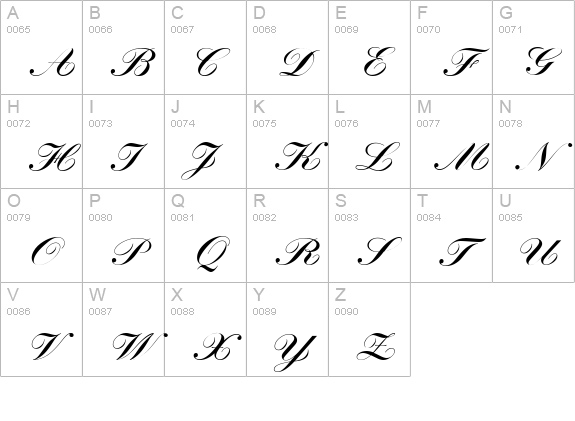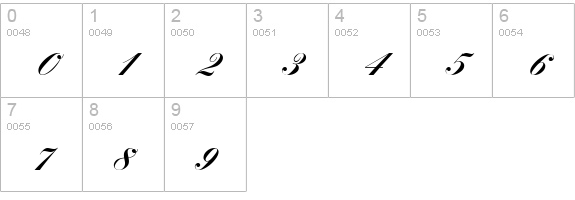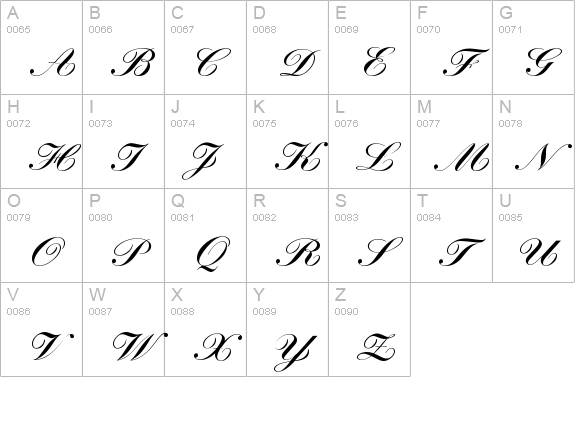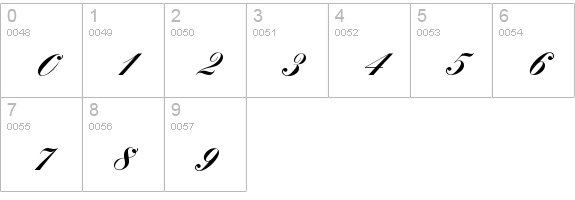
KremlinScript-Bold is a strong, high-contrast variant in the KremlinScript typeface family \xE2\x80\x94 well suited to headlines, attention-grabbing titles, and strong calls-to-action.
KremlinScript-Bold is a striking and bold font that exudes elegance and sophistication. Its strong and clean lines make it perfect for headlines, titles, and other prominent text. The font carries a sense of authority and confidence, making it ideal for projects that require a commanding presence. What sets KremlinScript-Bold apart is not just its boldness, but also its versatility. Whether used in print or digital media, this font is sure to make a statement and capture attention. Its timeless design ensures that it will remain a classic choice for a wide range of design projects. Best of all, KremlinScript-Bold is free to download at FontsMarket.com. This means you can easily access this impressive font without any cost, making it a valuable addition to your design toolkit. Don't miss out on the opportunity to enhance your projects with the bold and impactful KremlinScript-Bold font.